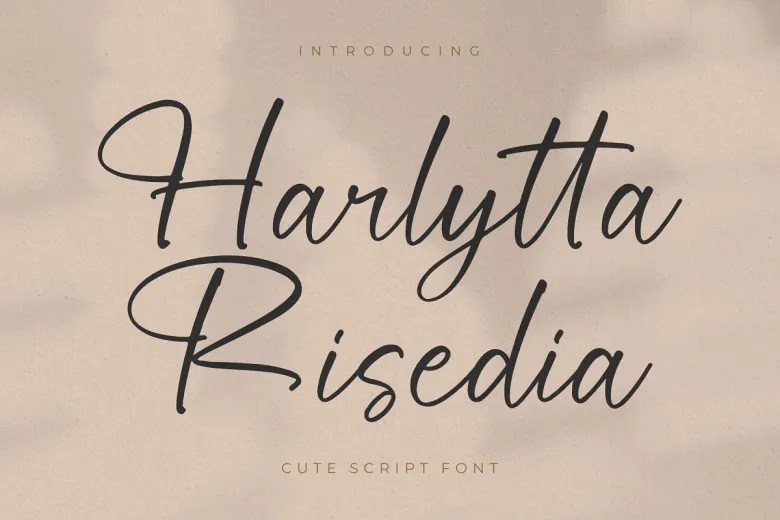
Harlytta Risedia Font
Harlytta Risedia is a stunning handwritten font, meticulously crafted to bring elegance and charm to your designs. With its delicate and precise strokes, it adds beauty and depth, making it an ideal choice for a variety of creative projects.
This impressive font captures the essence of a handwritten style, offering a personalized touch to any design work. Perfect for invitations, logos, branding, and more, Harlytta Risedia elevates your projects with its distinctive character.
An excellent addition to any font library, Harlytta Risedia provides a unique and sophisticated flair to your text. Its versatility makes it suitable for both formal and casual design needs, bringing an artistic touch wherever it’s used.